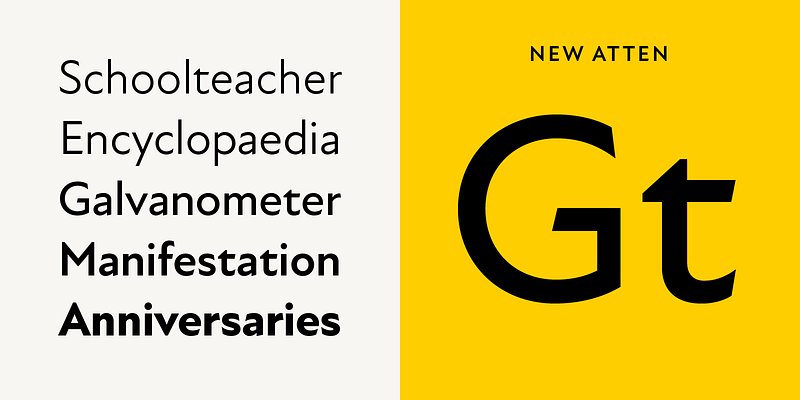
New Atten Font Free Download is a contemporary sans-serif typeface known for its sleek and professional design. Featuring clean lines, balanced proportions, and a modern aesthetic, this font is ideal for a wide range of applications, including branding, web design, corporate materials, and digital content.
New Atten Font Free Download provides excellent legibility and clarity, making it versatile for both headlines and body text. Its neutral and minimalist design ensures it works seamlessly in various contexts, from professional documents to creative designs, giving your typography a polished and sophisticated look.
Whether you're designing a corporate website, an editorial layout, or promotional materials, New Atten offers a modern and refined solution for your typographic needs.